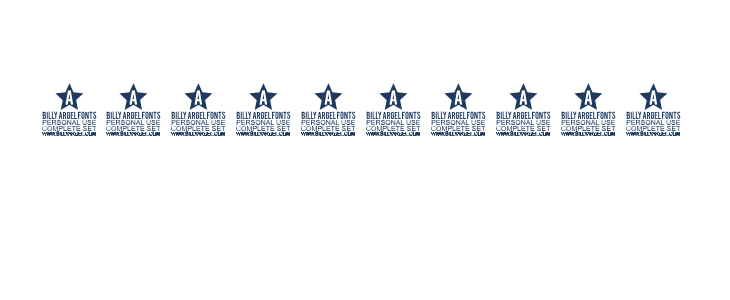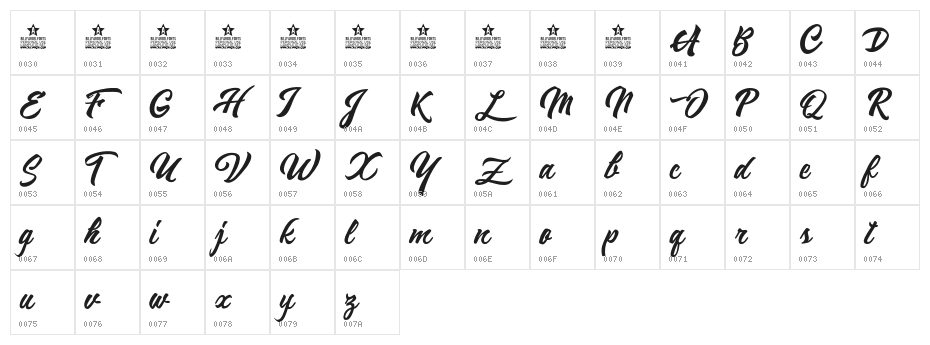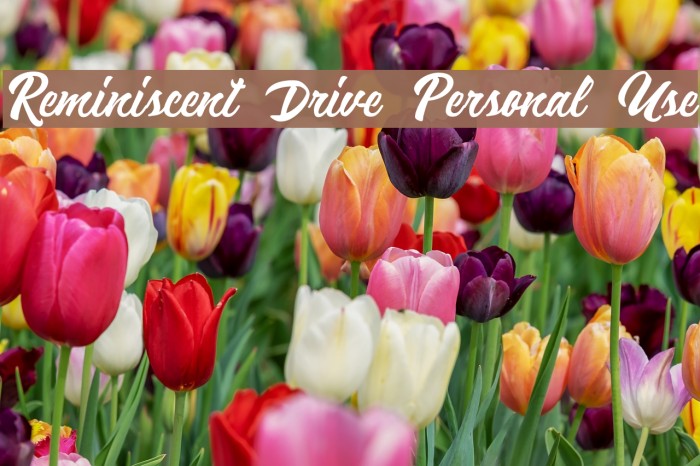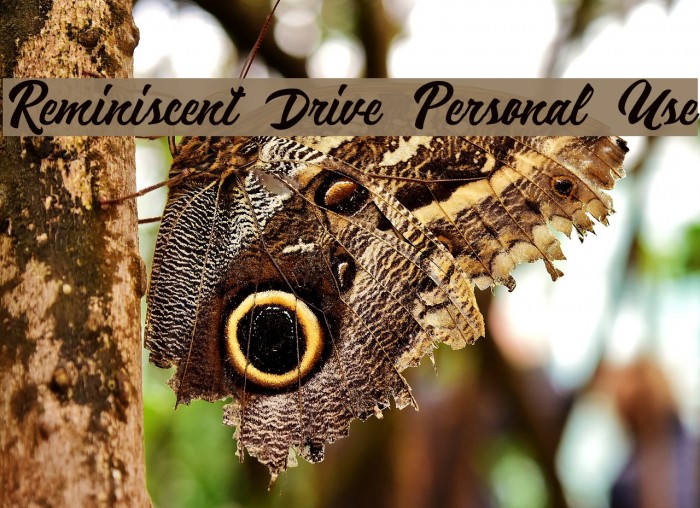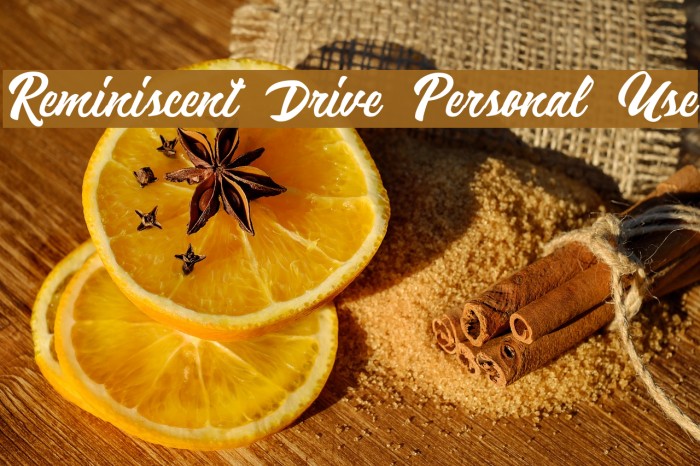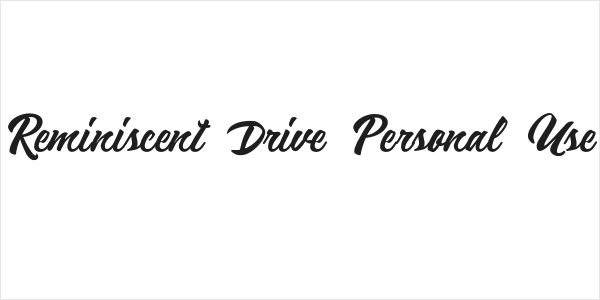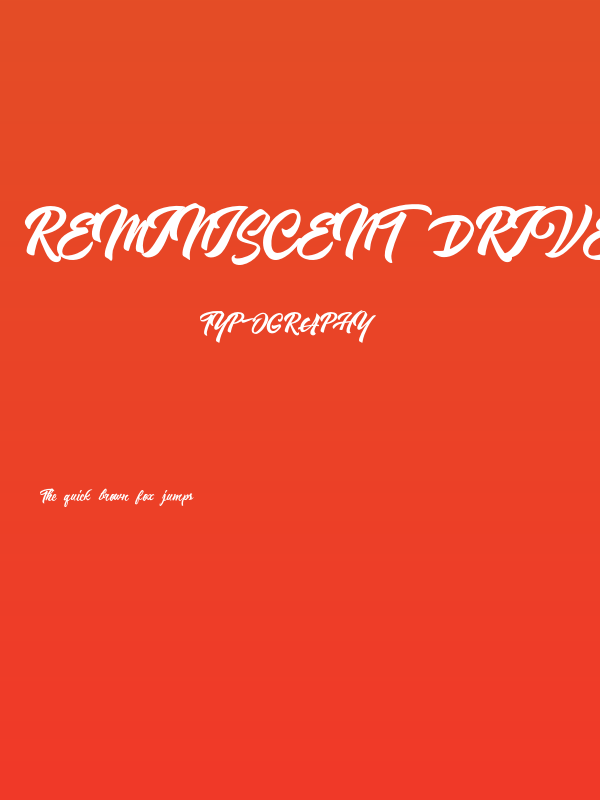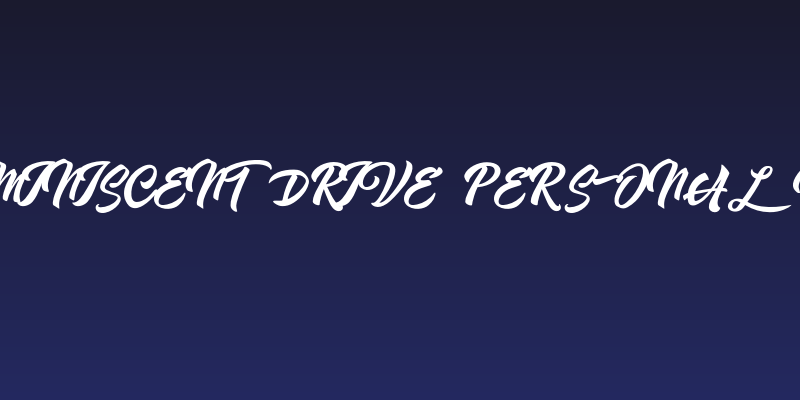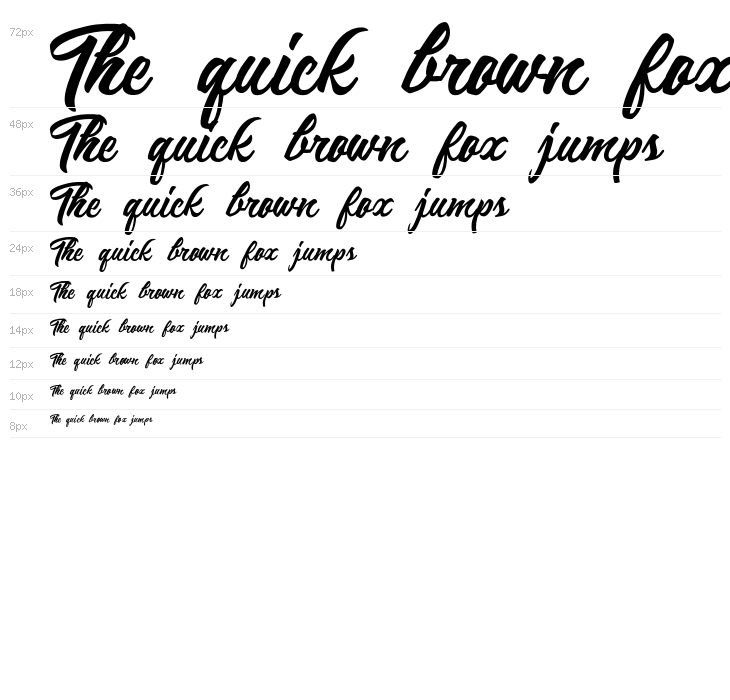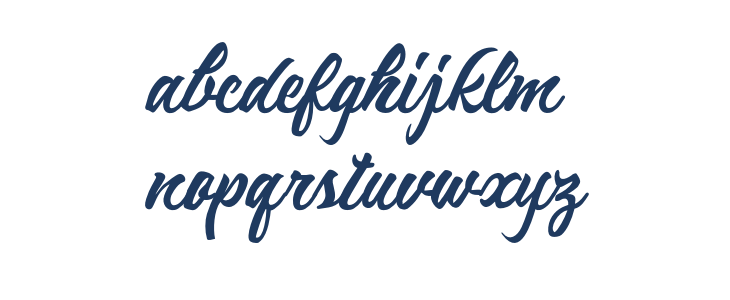
Reminiscent Drive Personal Use Font
Reminiscent Drive Personal Use Description
This font features a bold, cursive style with a flowing, handwritten appearance. The letters are connected, creating a smooth and continuous script that exudes elegance and sophistication. The uppercase letters are slightly more ornate, with flourishes that add a touch of flair, while the lowercase letters maintain a consistent rhythm and balance. The numbers and special characters are designed to match the overall aesthetic, ensuring a cohesive look. The font's bold weight and high contrast between thick and thin strokes make it stand out, ideal for creating impactful designs.
Overall StyleElegant, Decorative
Use CaseLogos, Invitations, Branding
Proposed ProjectsIdeal for wedding invitations, branding, logos, and elegant packaging designs.